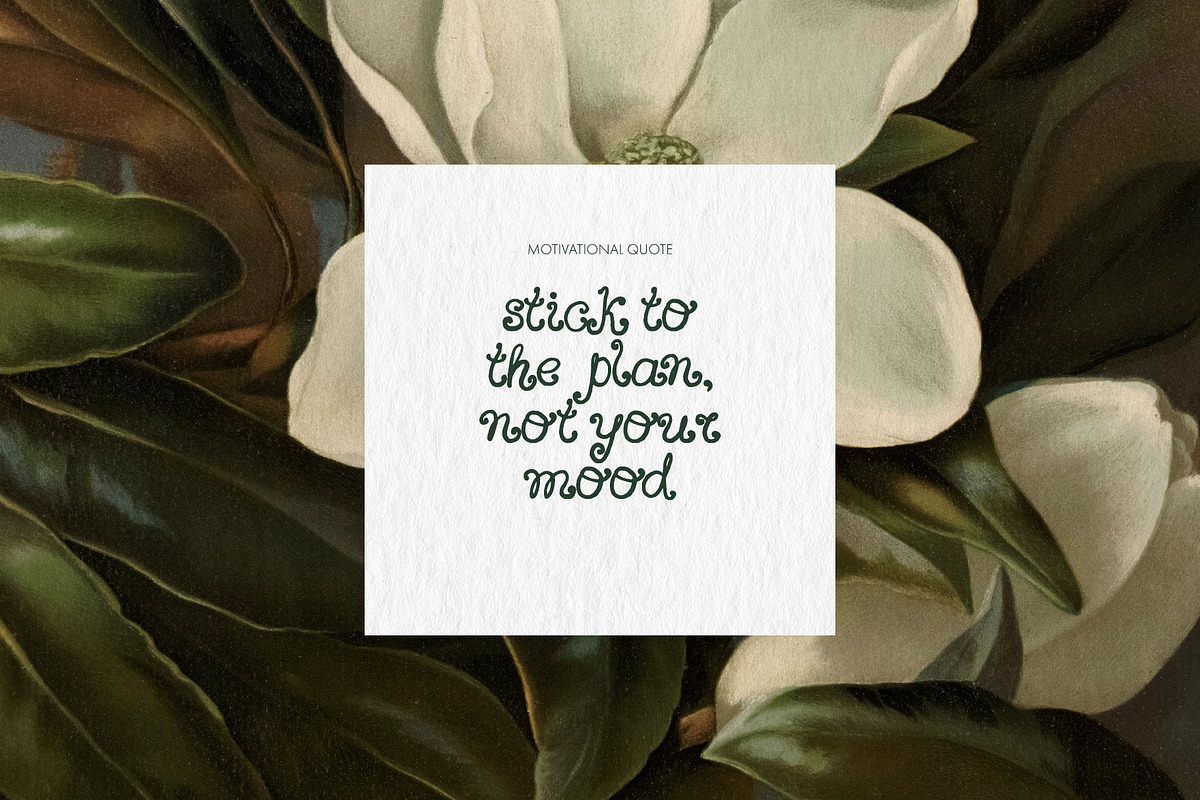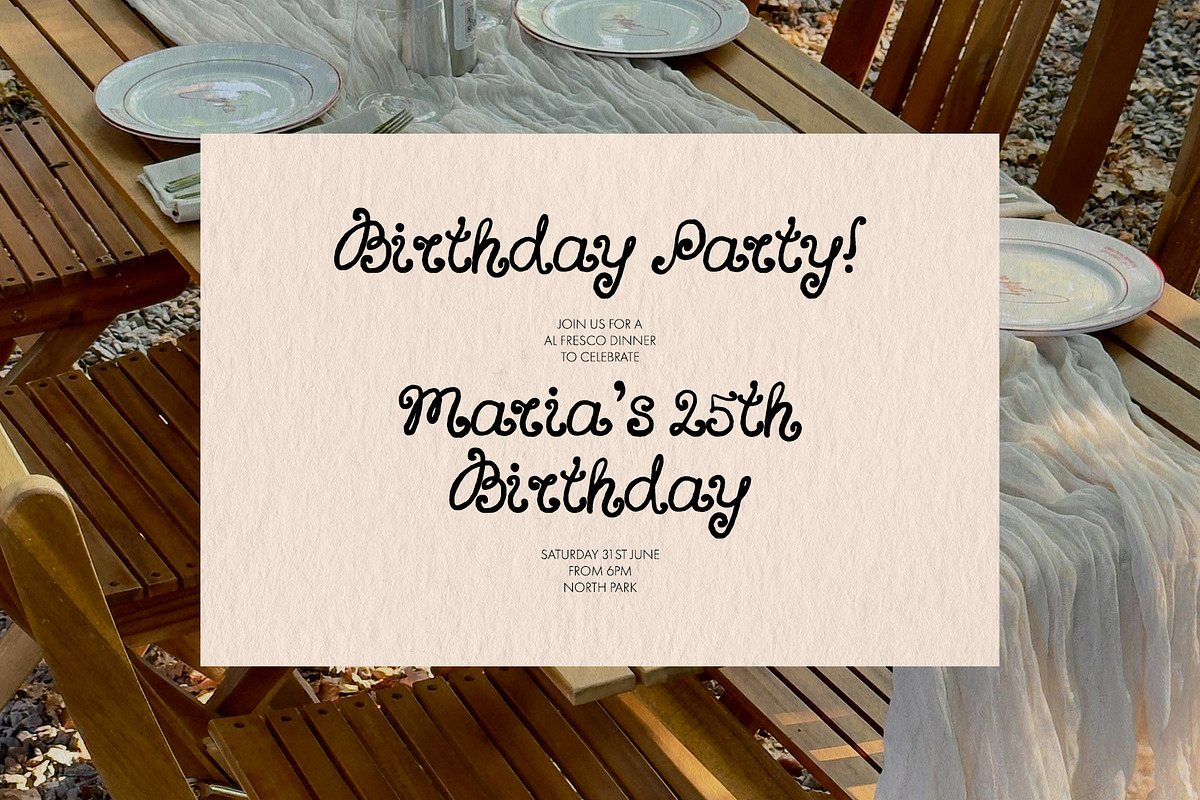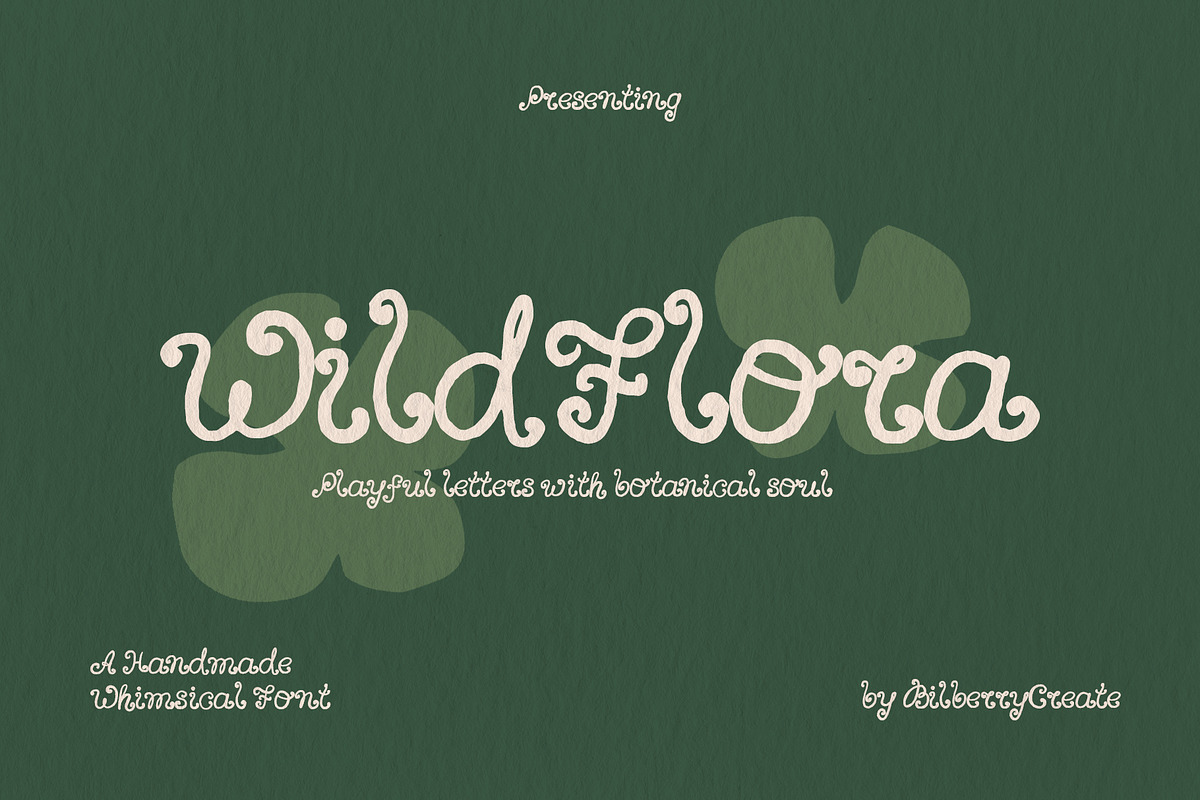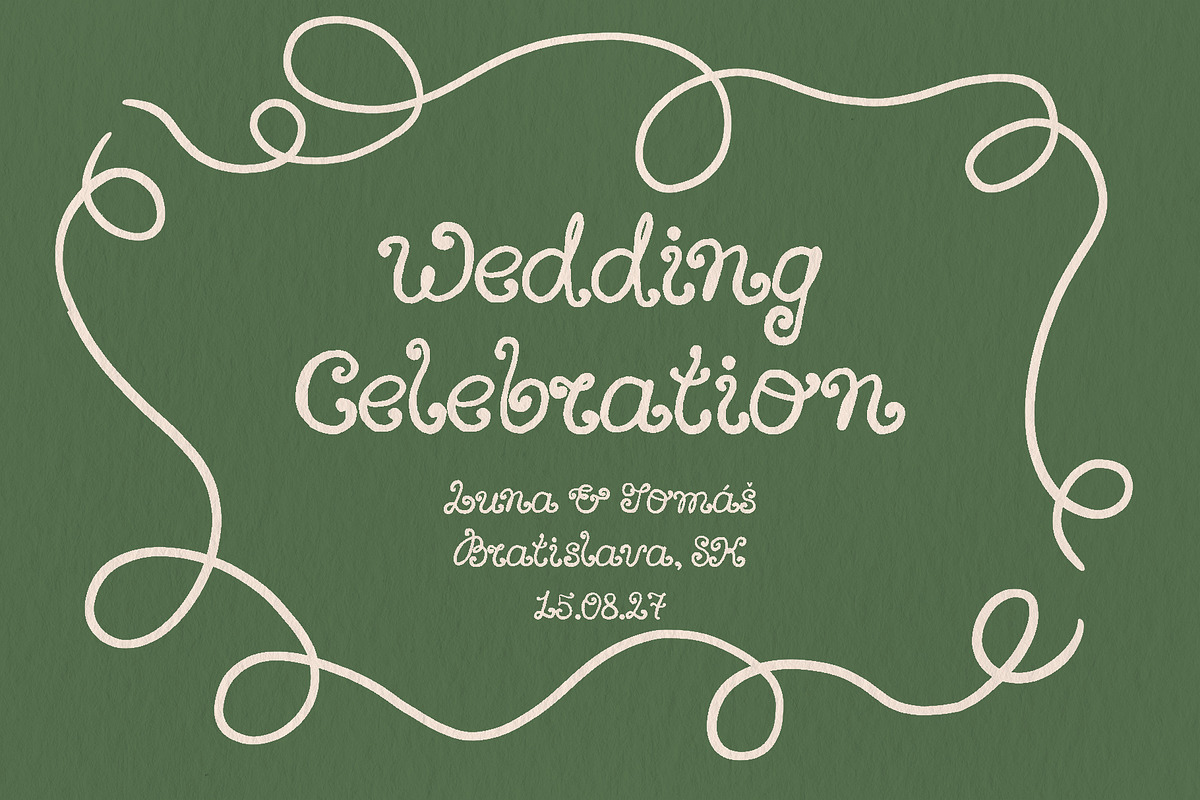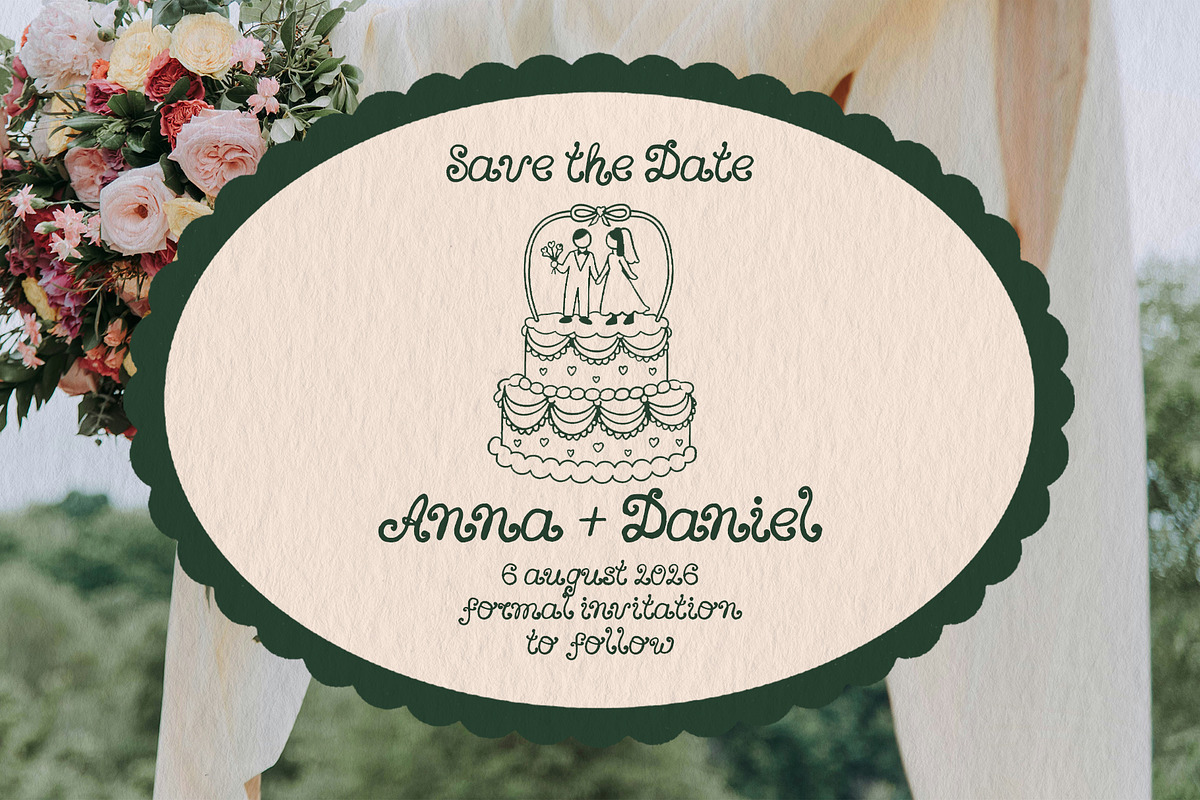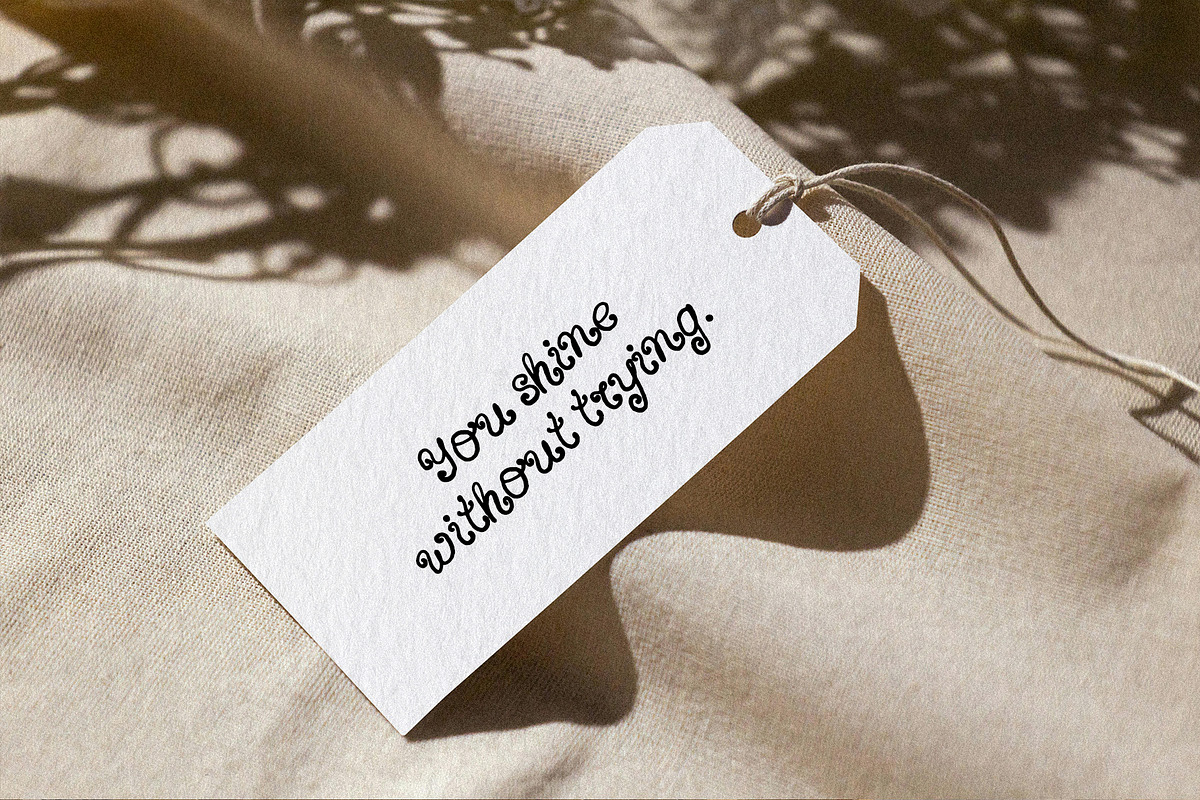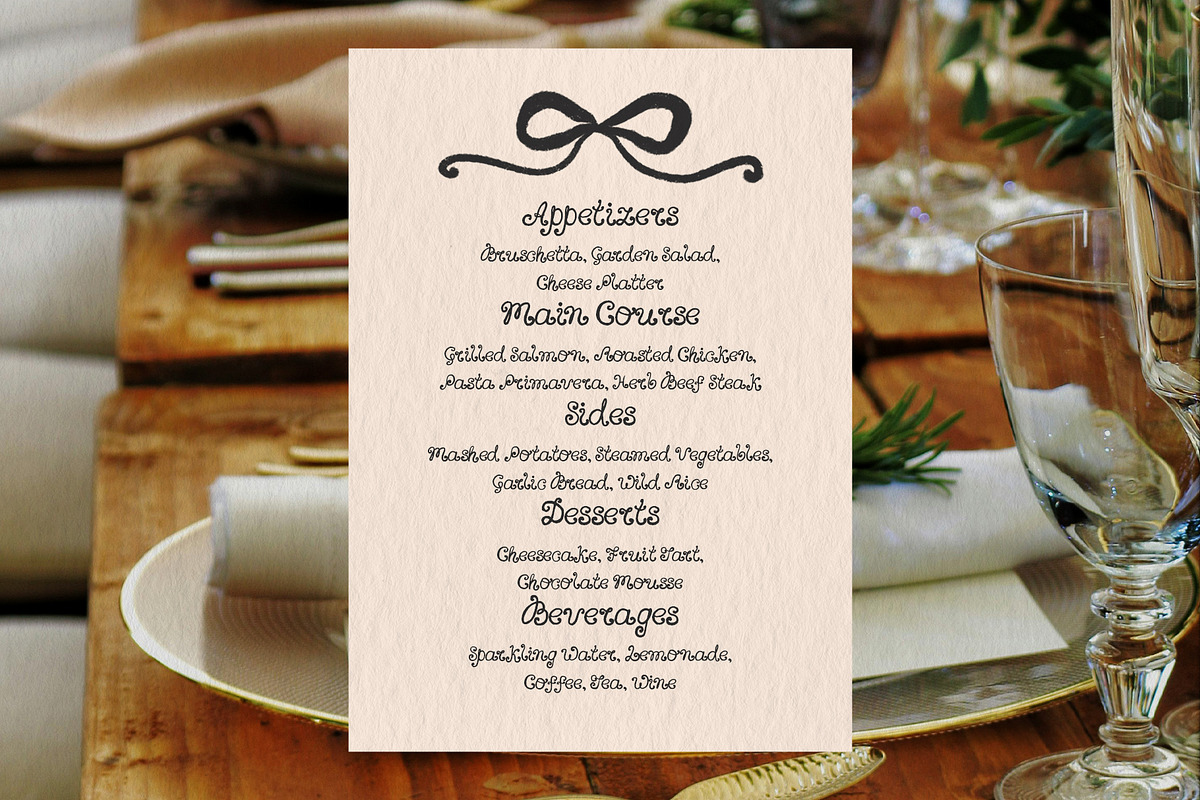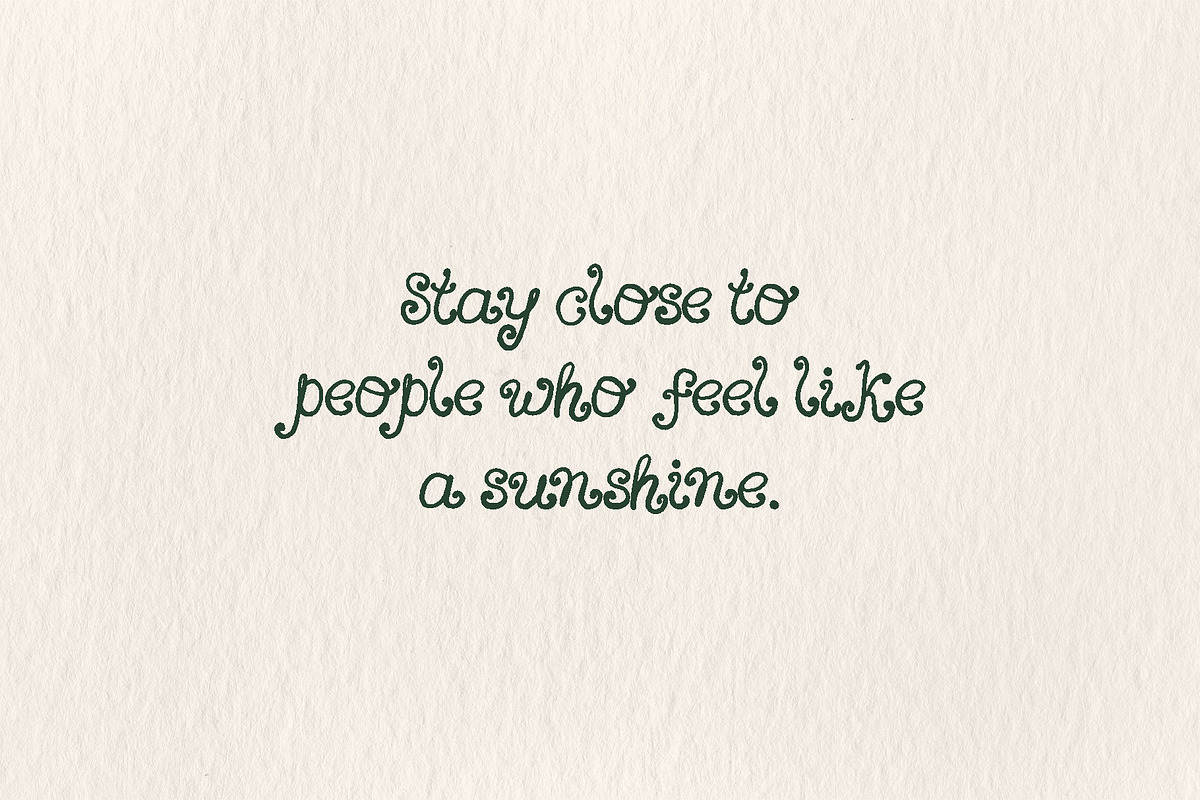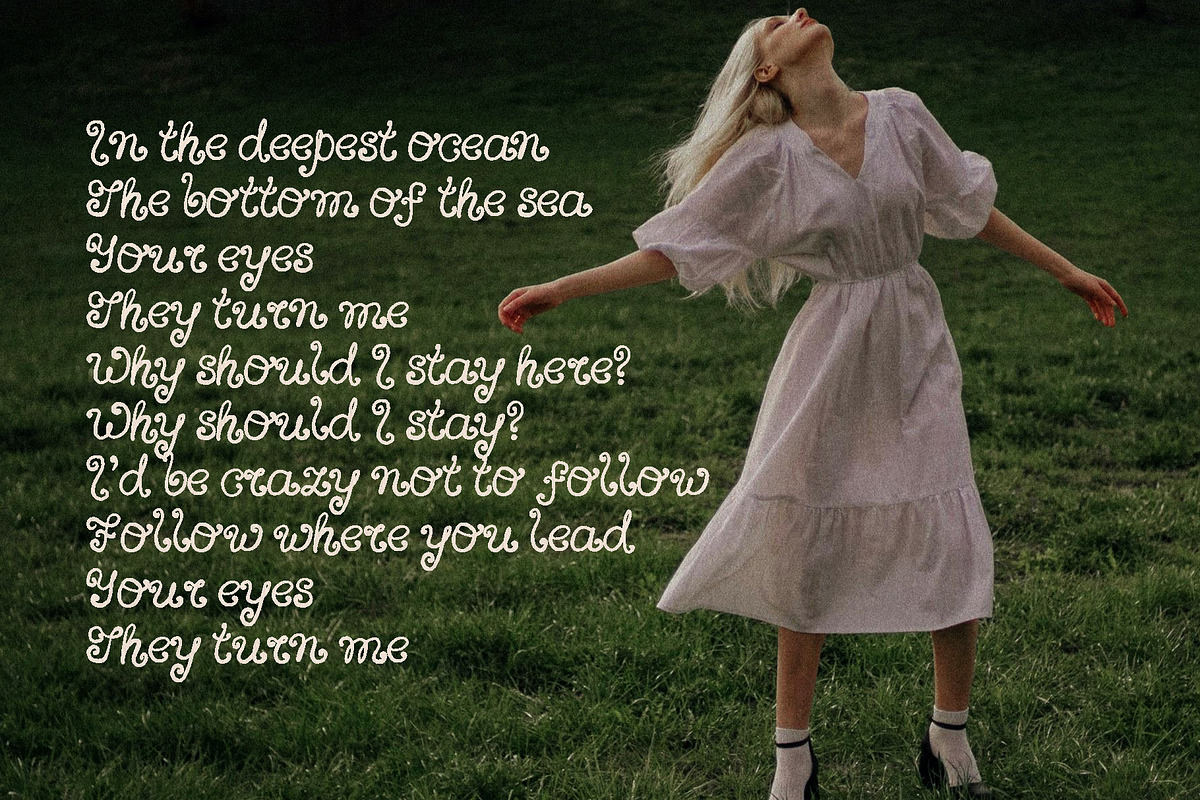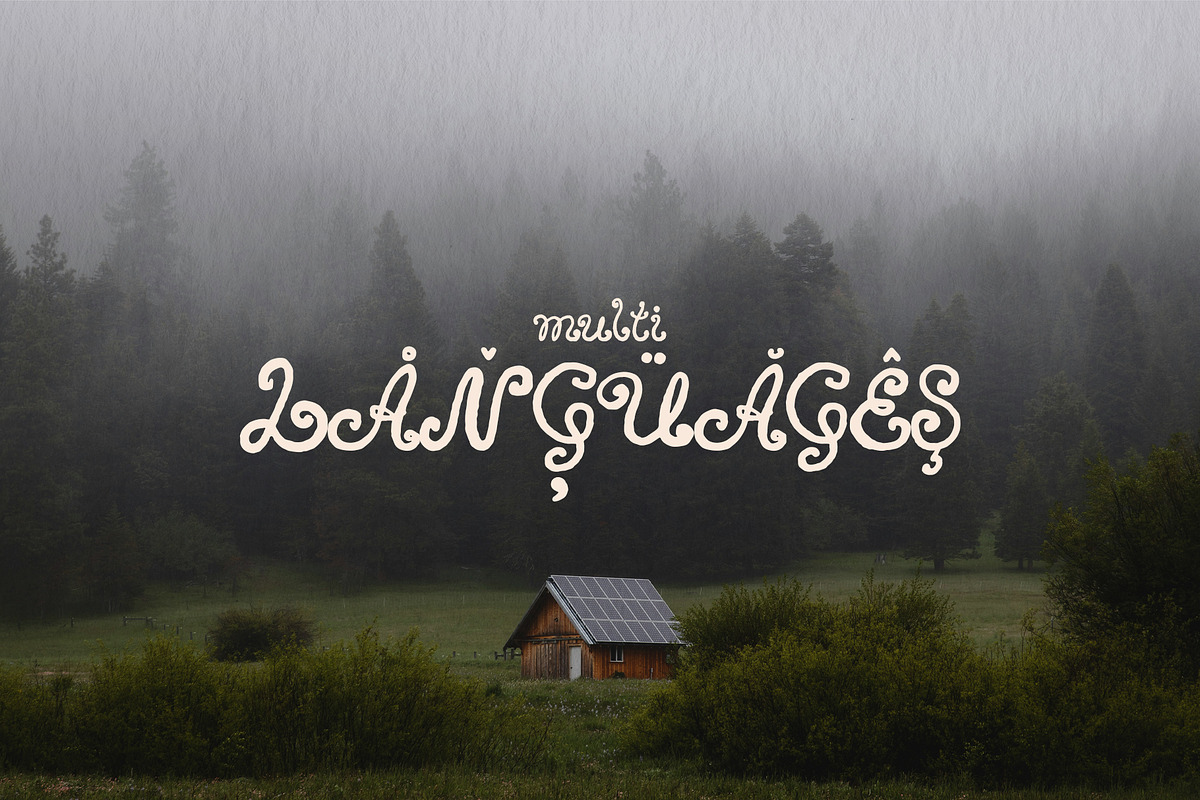
WildFlora - Playful Botanical Font
WildFlora is a whimsical handmade typeface inspired by soft botanical shapes and natural, flowing forms. Each letter feels like it was drawn by hand, with gentle curls and organic curves that echo leaves, petals, and forest vines. The result is a warm, friendly font full of personality and artistic charm.
- natural cosmetic packaging
- logos and branding with an earthy or organic feel
- posters, greeting cards & stationery
- wedding invitations and seasonal designs
- DIY projects, magazines, scrapbooking
- social media graphics & Instagram posts
- Full set of uppercase and lowercase letters
- Numbers & basic punctuation
- Smooth, organic strokes with a playful botanical spirit
WildFlora brings a touch of forest magic to your creative projects - soft, lively, and full of handmade character.